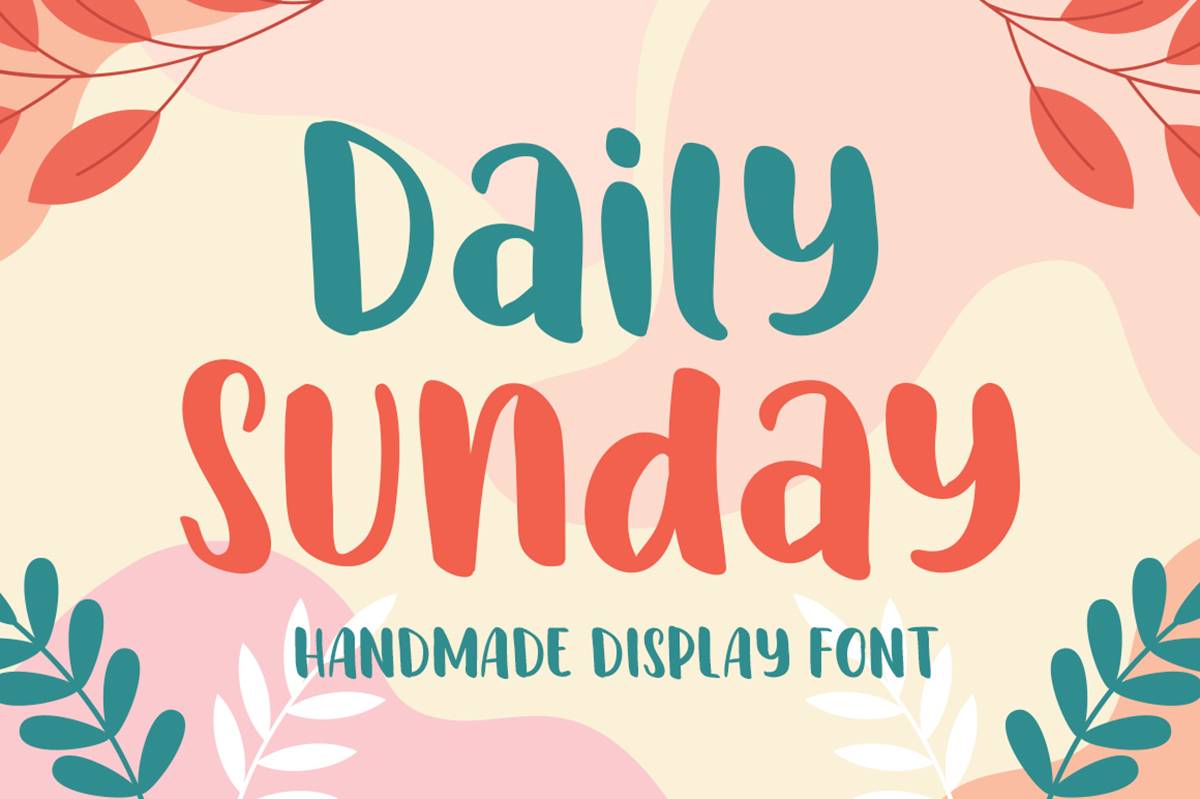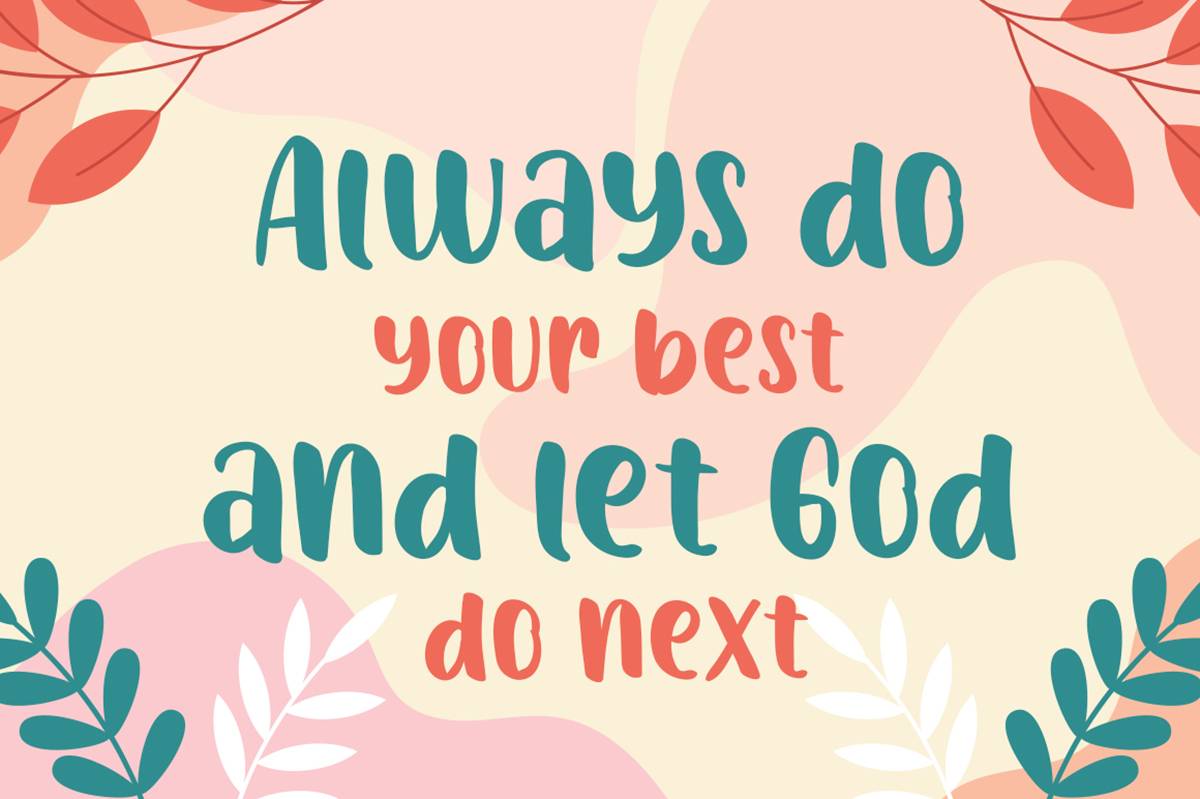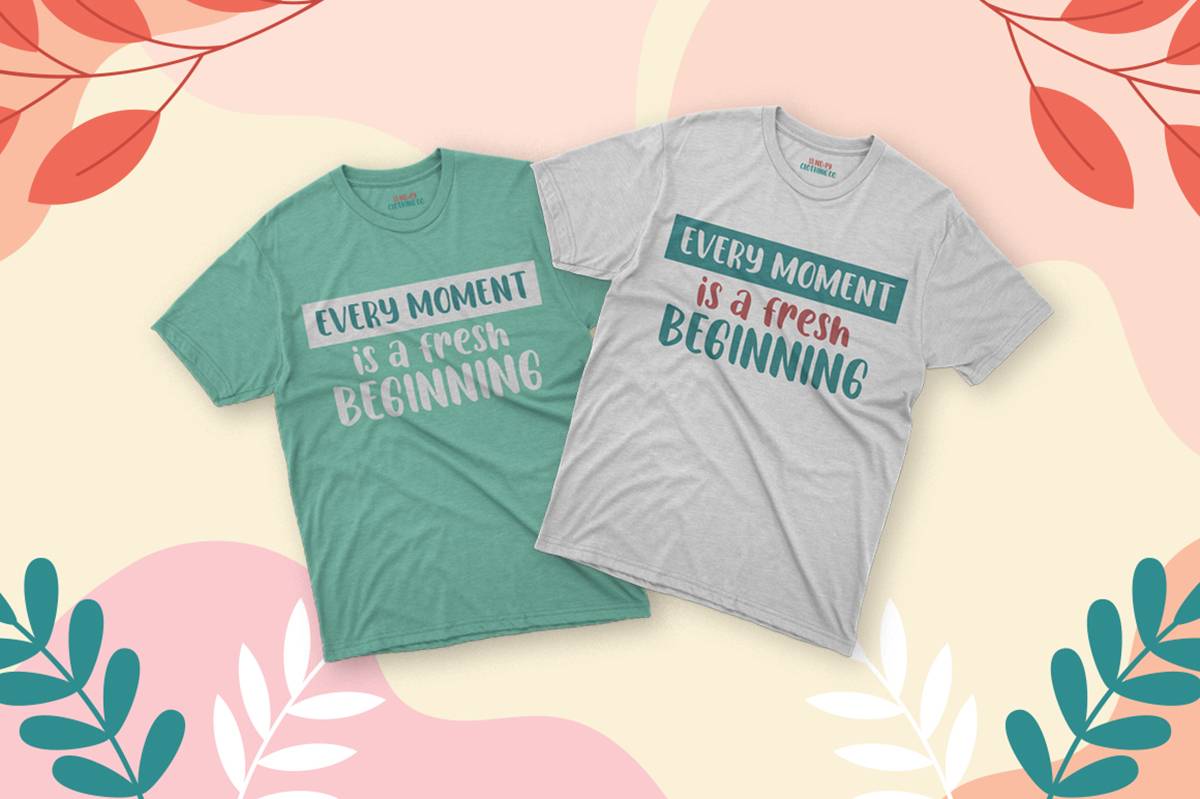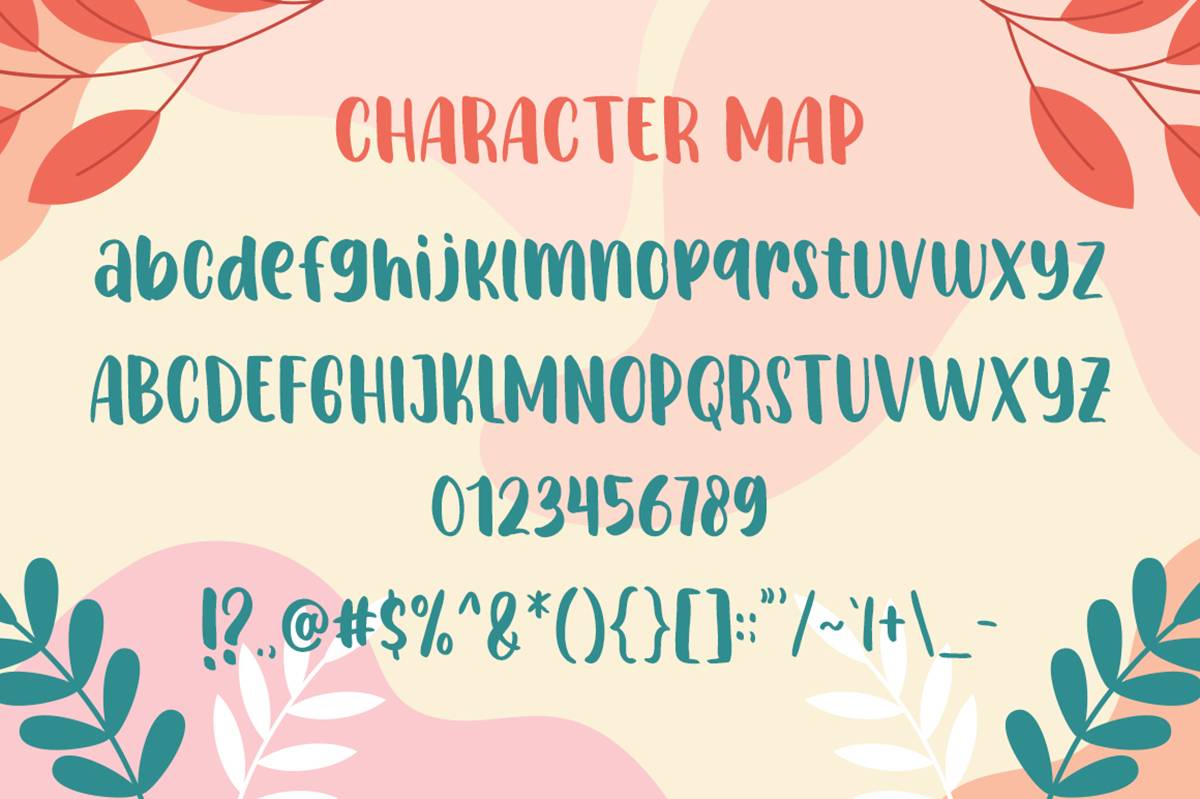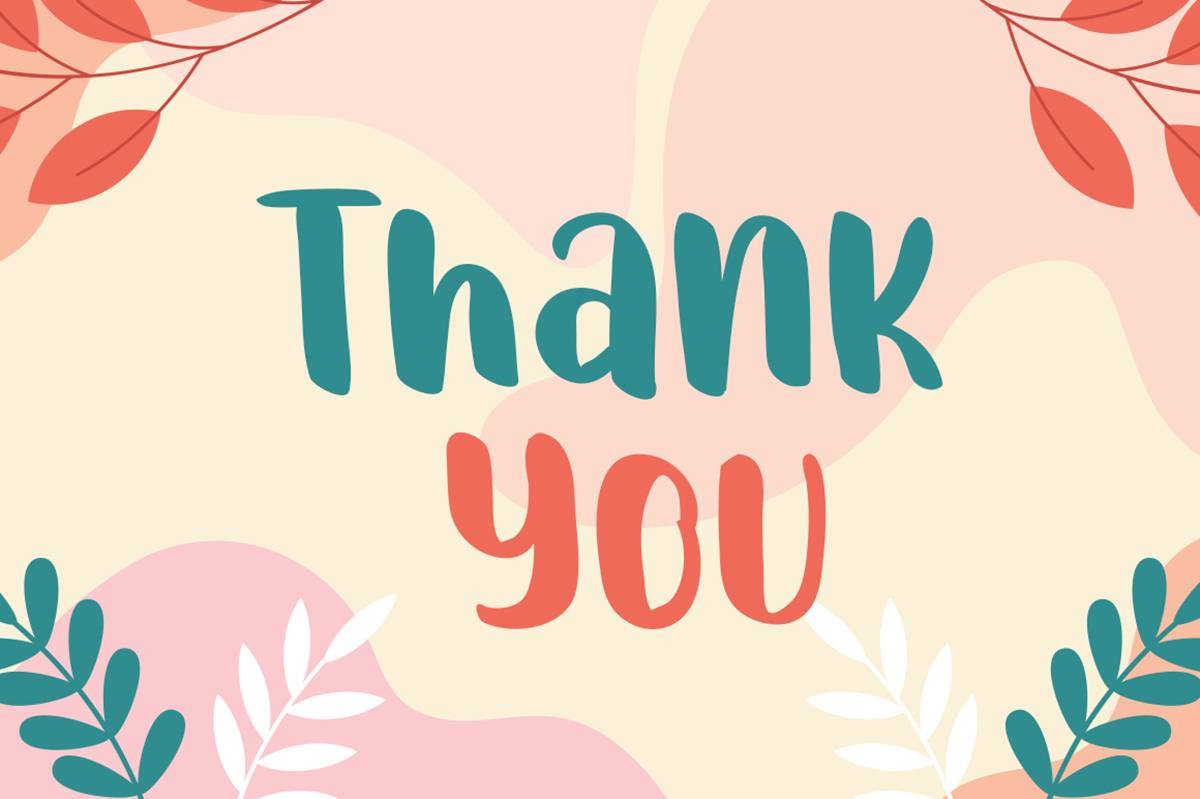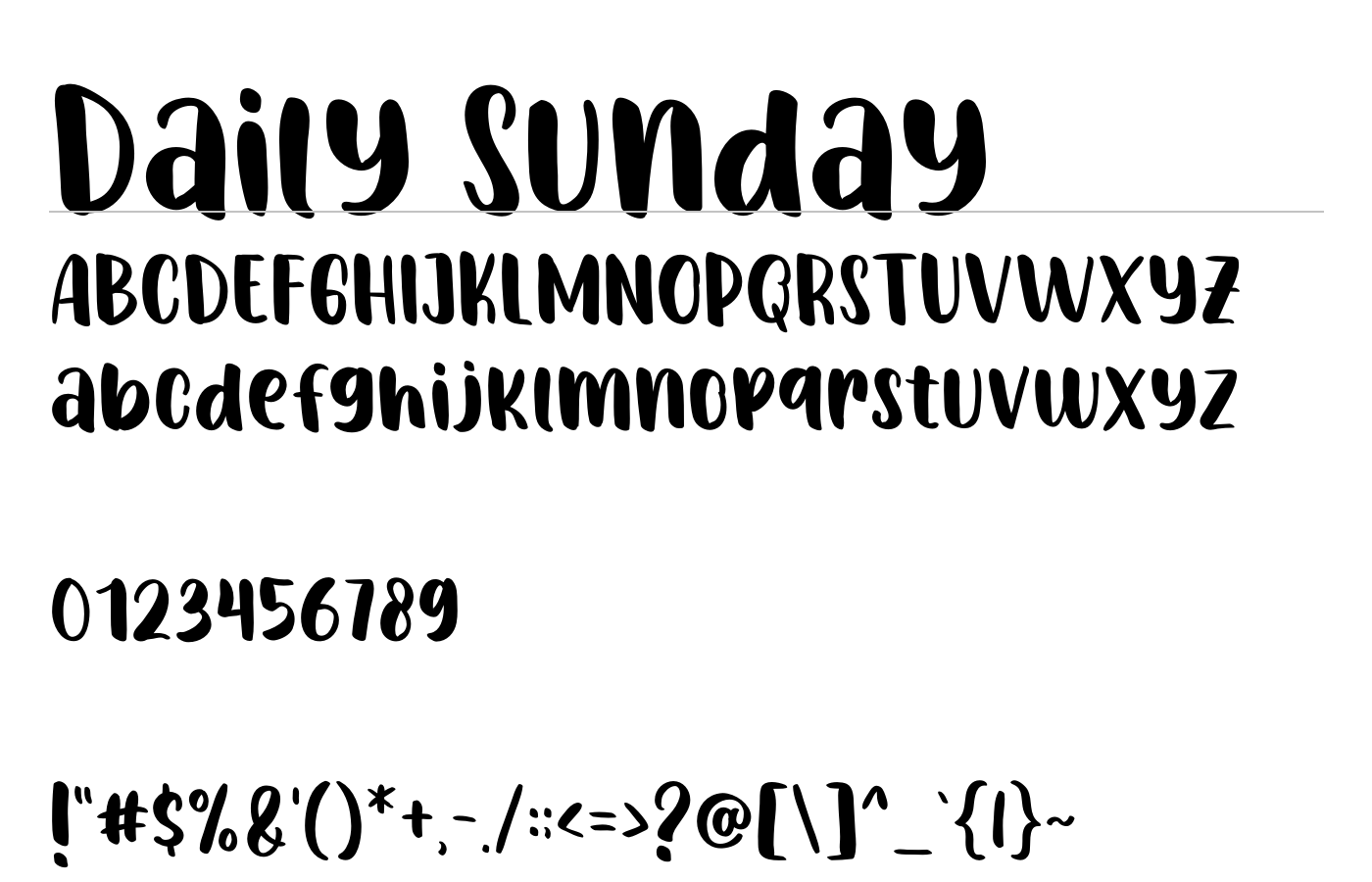
Daily Sunday is a playful and casual handwritten sans serif font with a bold, slightly condensed style and a friendly, informal feel. Its rounded, brush-like strokes and lively letterforms make it perfect for creative projects, kids’ products, and branding that aims for warmth and approachability. This font works best in headlines, logos, and packaging where a fun, energetic vibe is desired.
Daily Sunday Font
About Daily Sunday Font
| Font family | Daily Sunday Font |